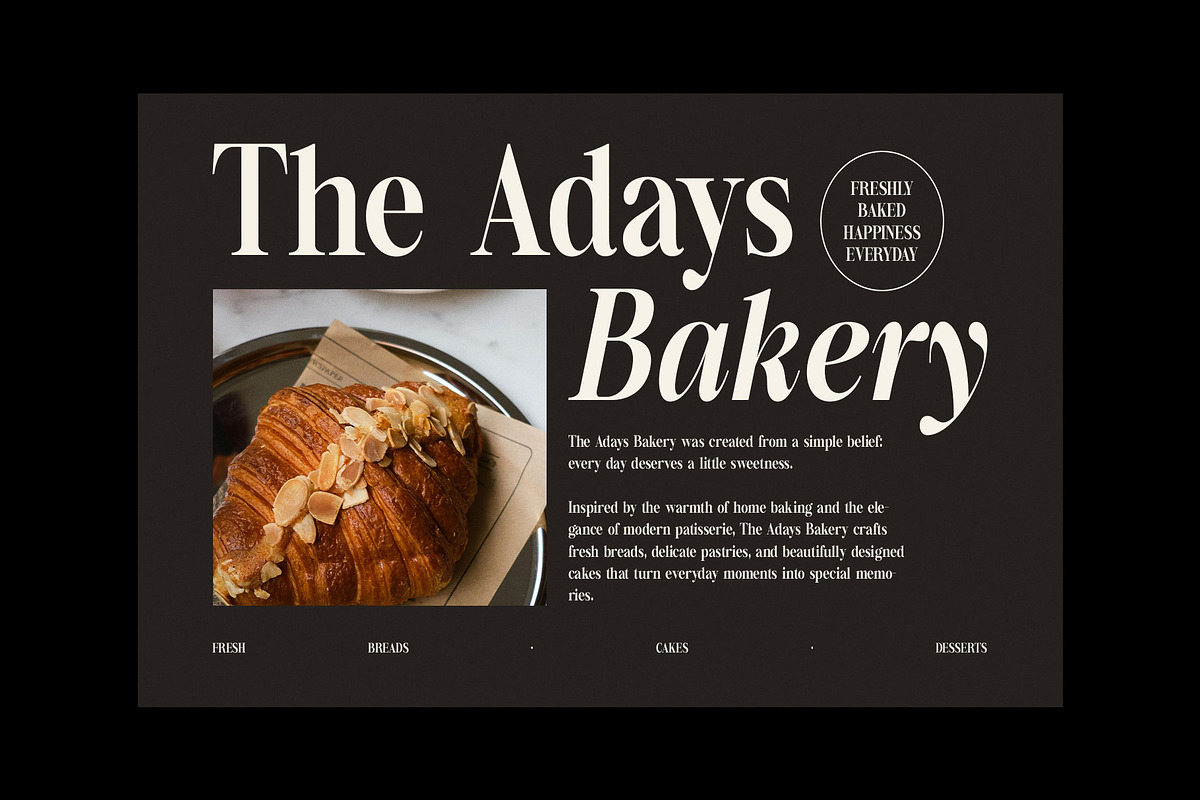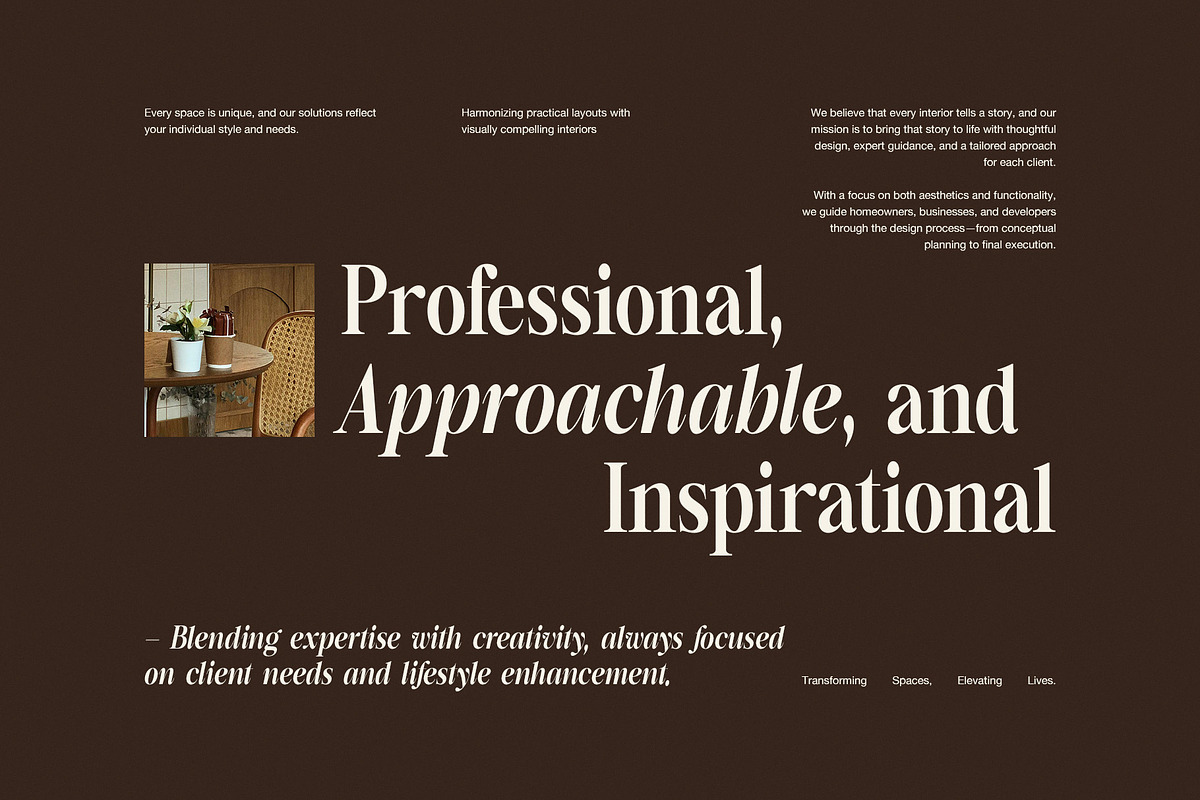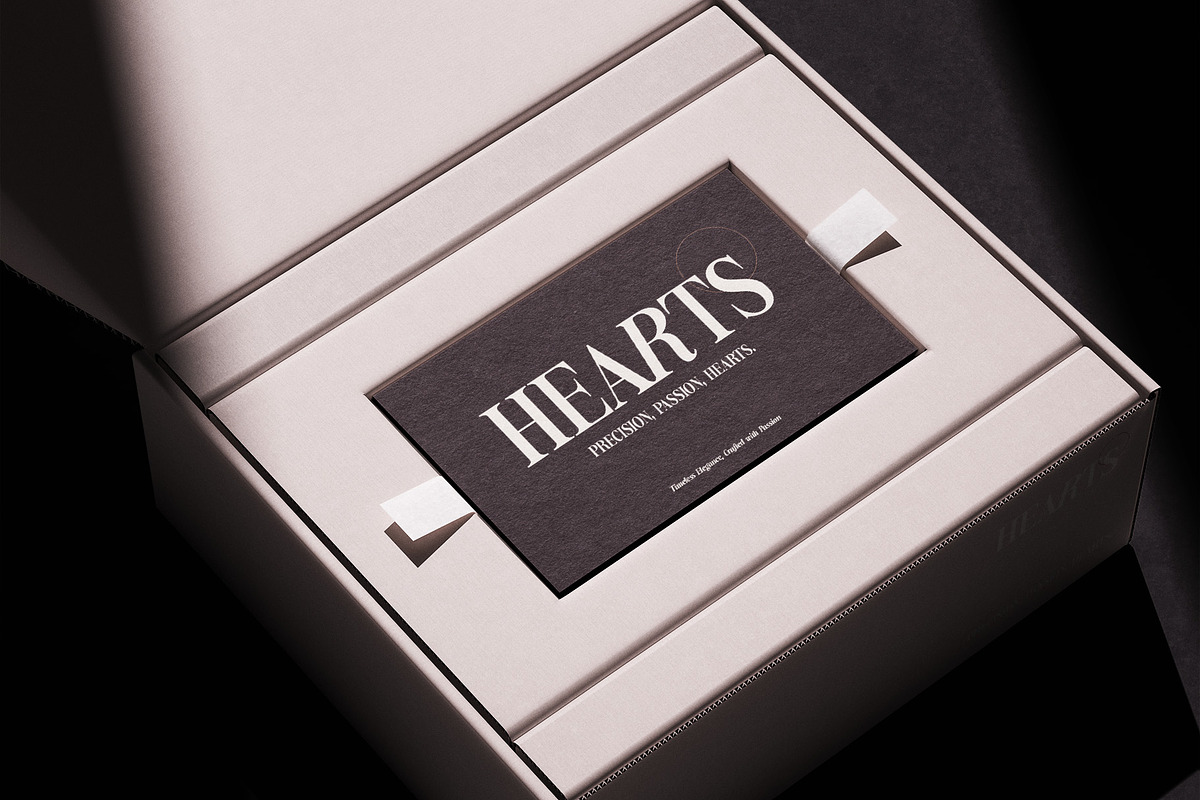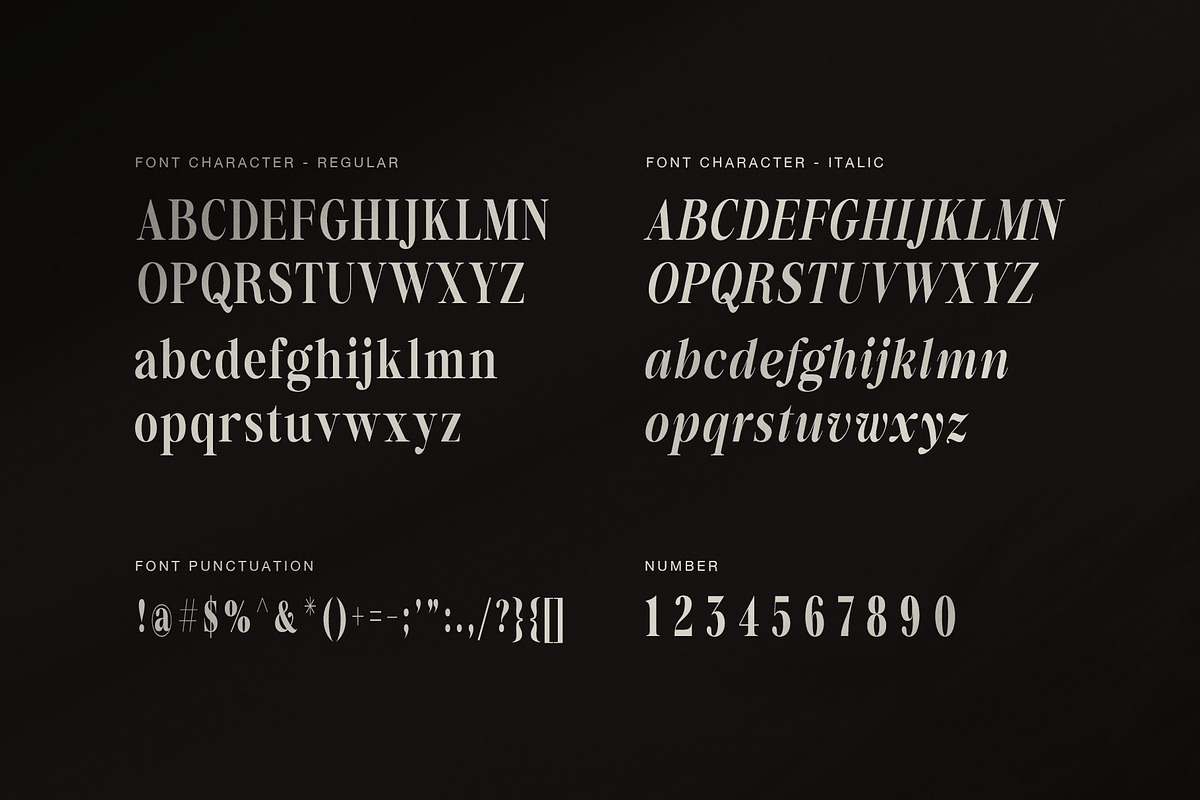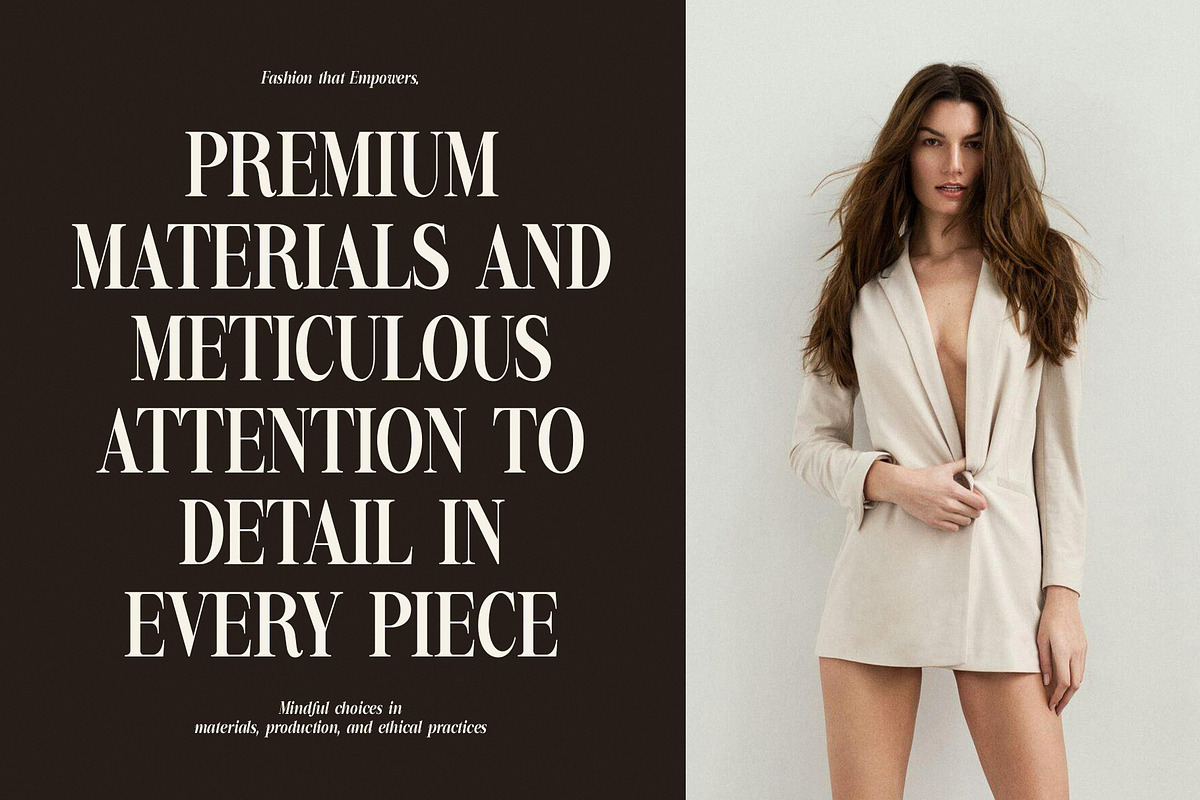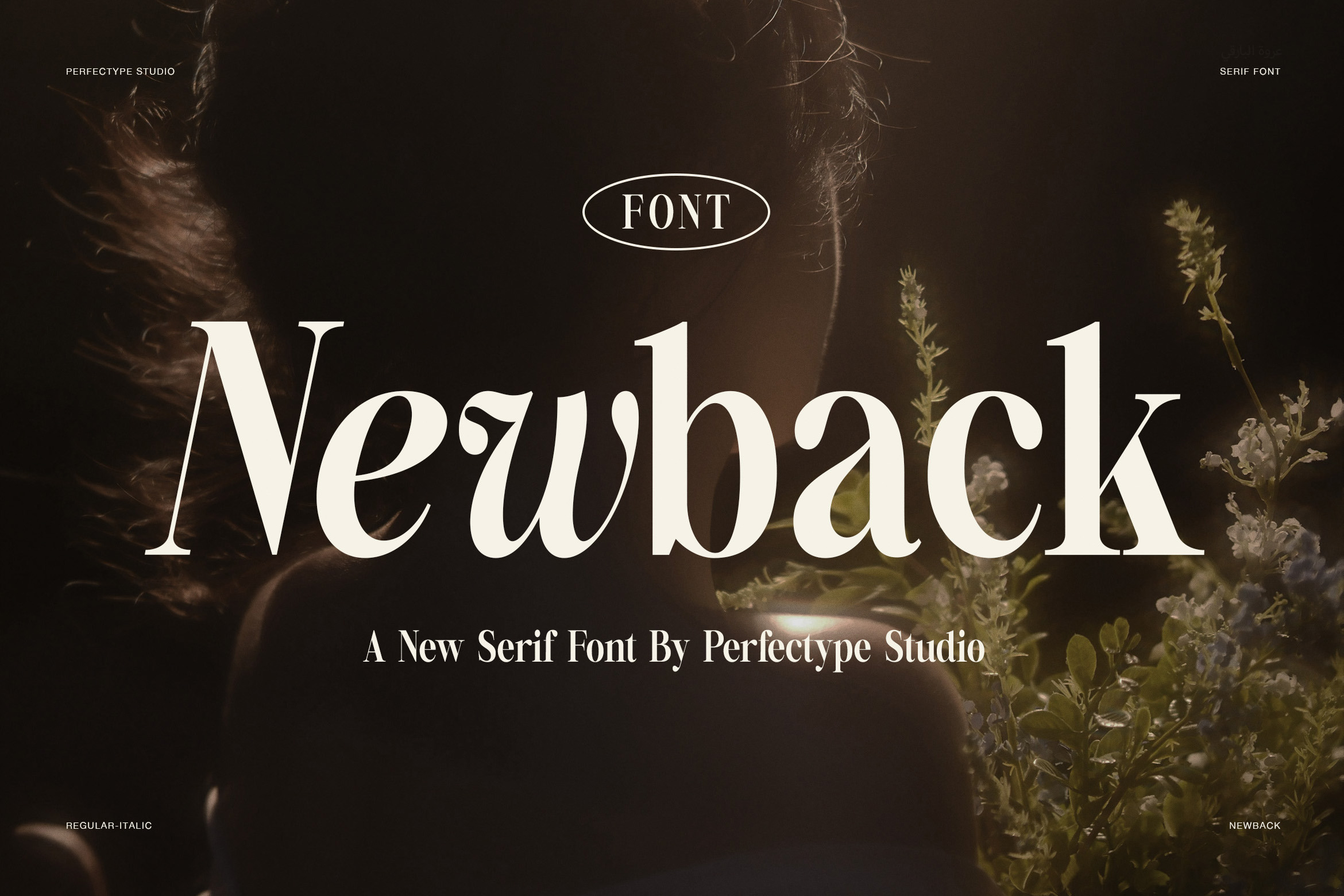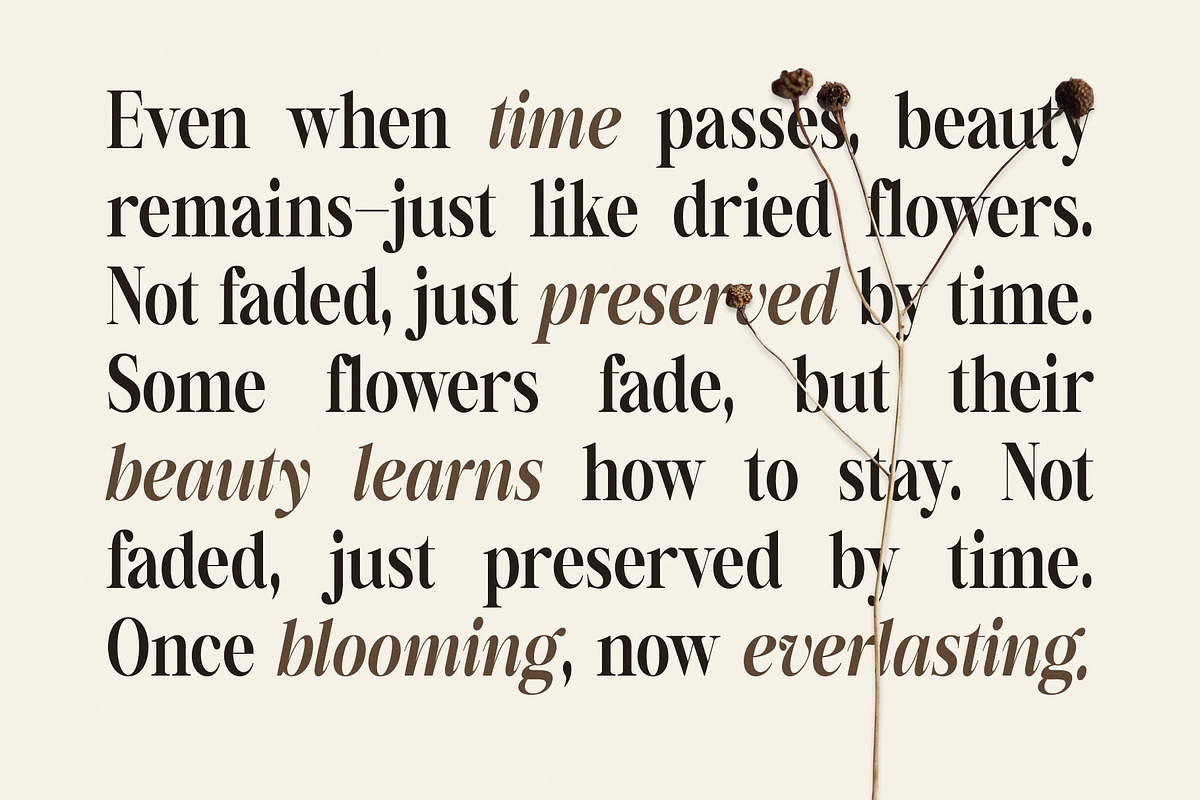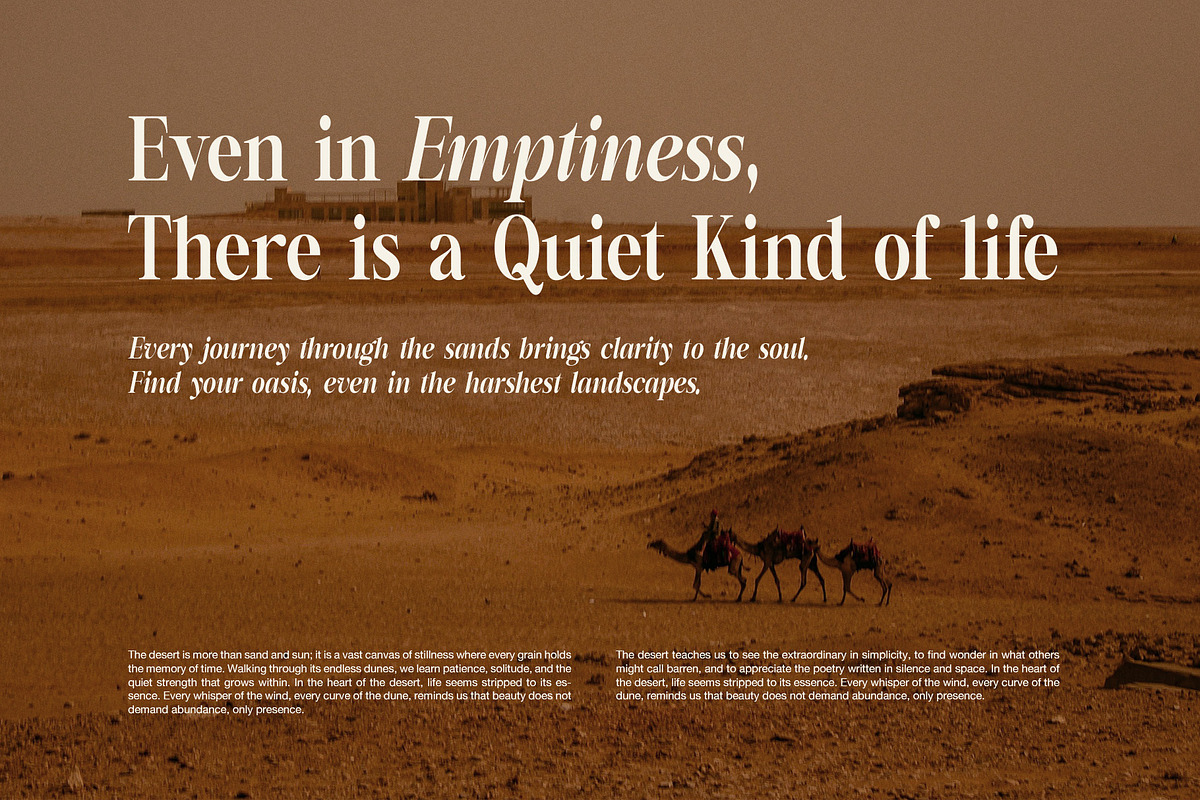
New Back Elegant Family Serif Font
Newback Elegant Serif Font is a refined display typeface with a calm, classic mood. It blends graceful serif structure with soft curves and stylish contrast. As a result, it feels elegant, timeless, and very easy to admire. At first glance, Newback looks polished and premium. However, the more you see it, the more its quiet beauty stands out.
The letterforms are clean, balanced, and full of charm. In addition, the contrast between thick and thin strokes gives the font a rich visual rhythm. Some characters feel strong and formal, while others feel soft and expressive. Because of that, Newback works well for both luxury branding and editorial design. It looks beautiful in large headlines, yet it still feels smooth and readable in short supporting text.
One of the most attractive parts of Newback is its full style range. The regular style feels classy and confident, while the italic style adds movement and elegance. Therefore, designers can mix both styles to create layouts that feel more alive. This makes the font very useful for quotes, packaging, fashion visuals, bakery branding, beauty themes, and premium presentations.
From the preview, Newback fits many creative uses. It looks stunning on bakery promotions, fashion layouts, feminine branding, elegant packaging, business cards, editorial spreads, and lifestyle campaigns. Moreover, it suits interior design branding, luxury labels, beauty products, and social media content. The serif details feel stylish without becoming too decorative, so the font stays versatile.
Main Features
- Elegant serif style with timeless appeal
- Regular and italic font styles
- Clean contrast with graceful curves
- Stylish look for editorial and branding work
- Ideal for logos, headlines, and quotes
- Great for fashion, bakery, beauty, and packaging
Why Designers Love It
Newback gives every design a polished and elevated voice. Even so, it still feels warm and natural. The regular style adds strength, while the italic style adds softness and flow. For that reason, the font is easy to use across many premium design projects.
If you need a serif font that feels classic, elegant, and flexible, Newback Elegant Serif Font is a beautiful choice. It helps your work look more refined, more stylish, and more memorable. So, whether you design for fashion, food, beauty, interiors, or luxury branding, this font can leave a lasting impression.